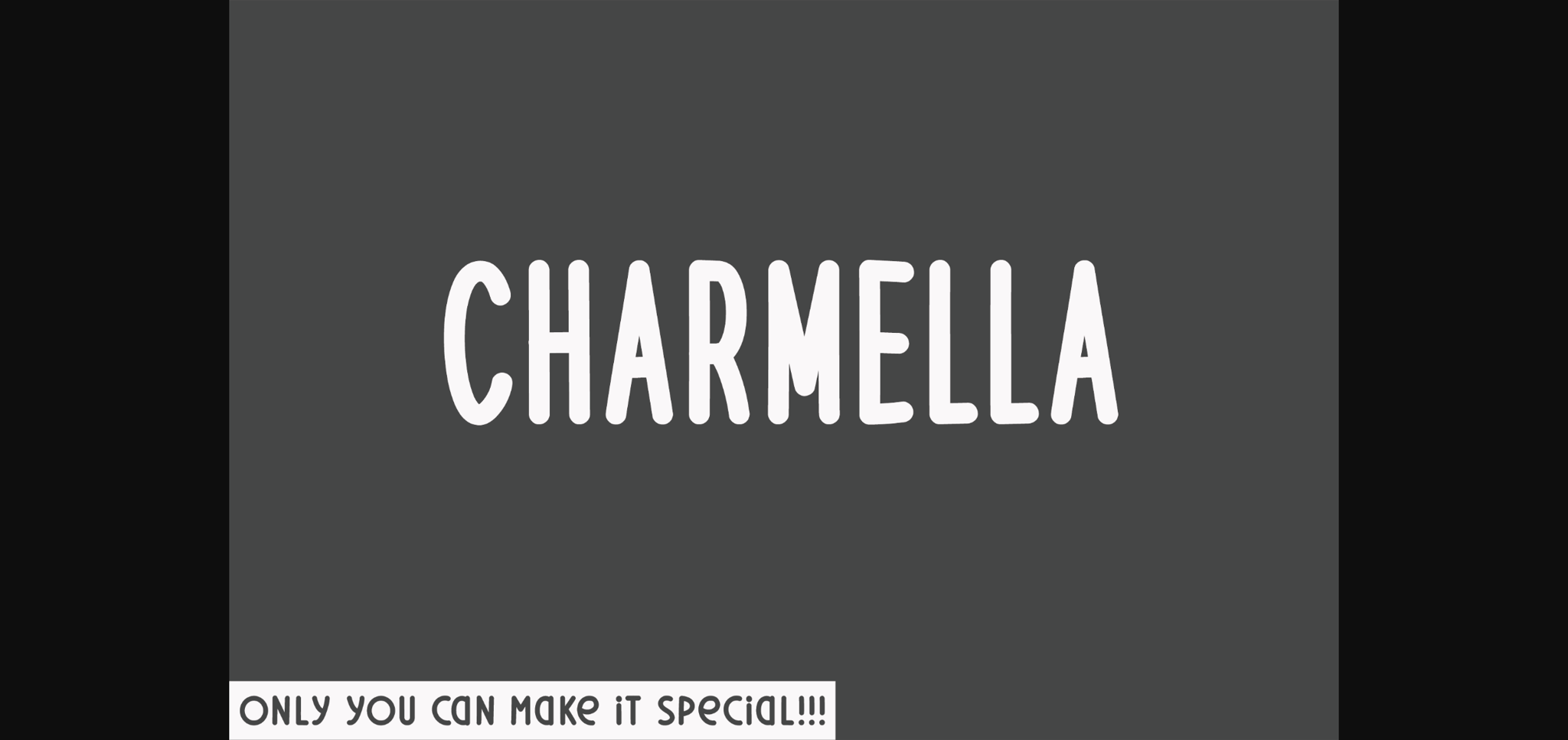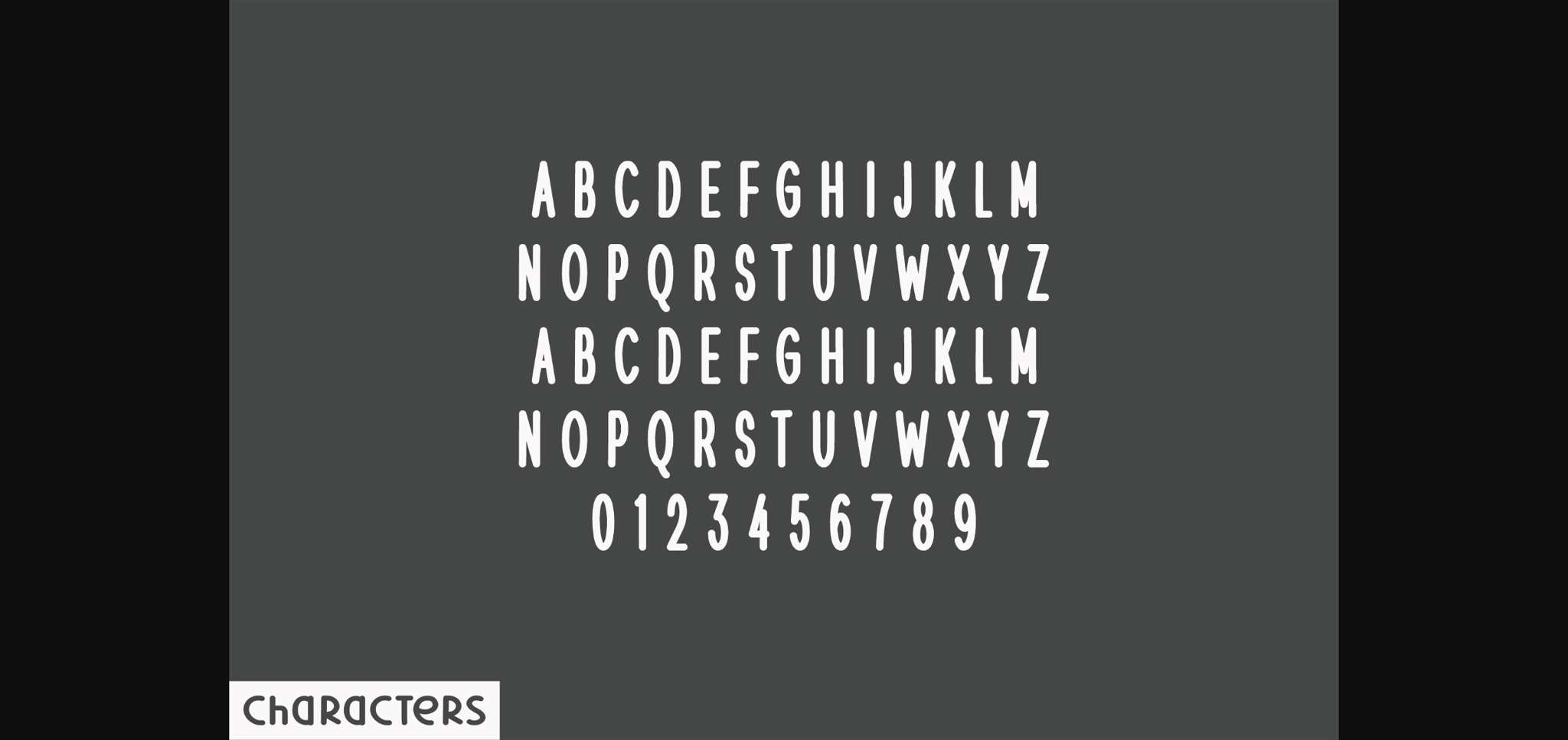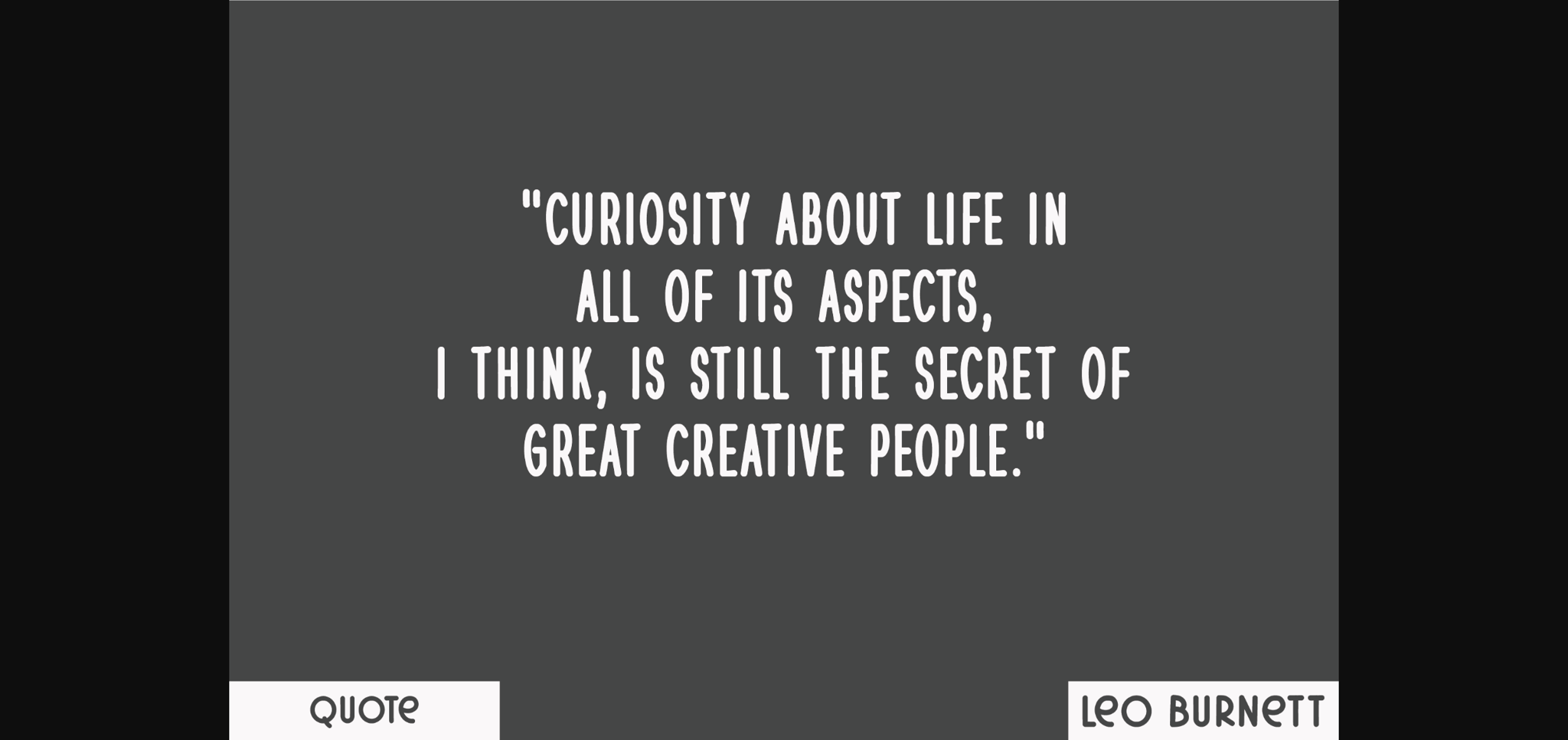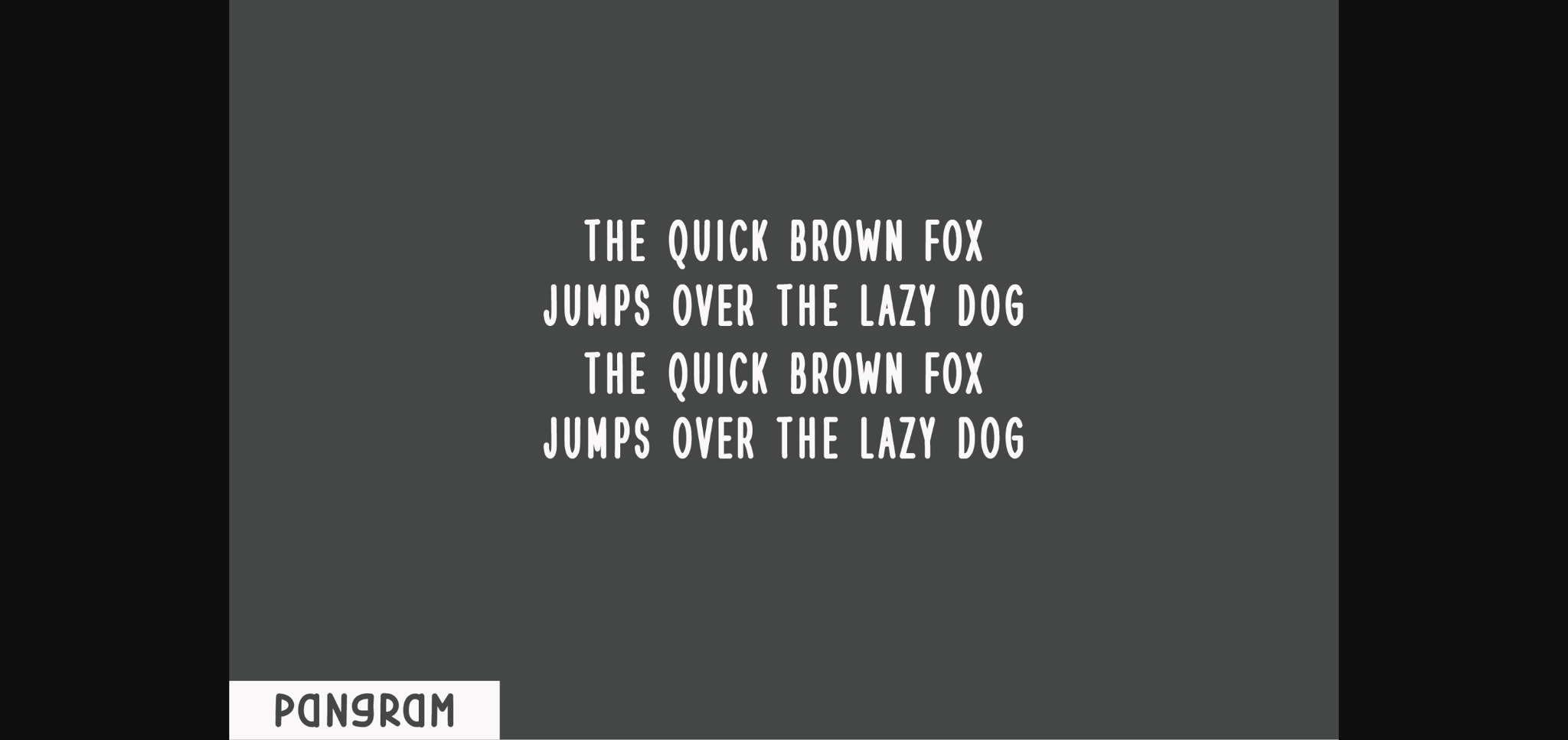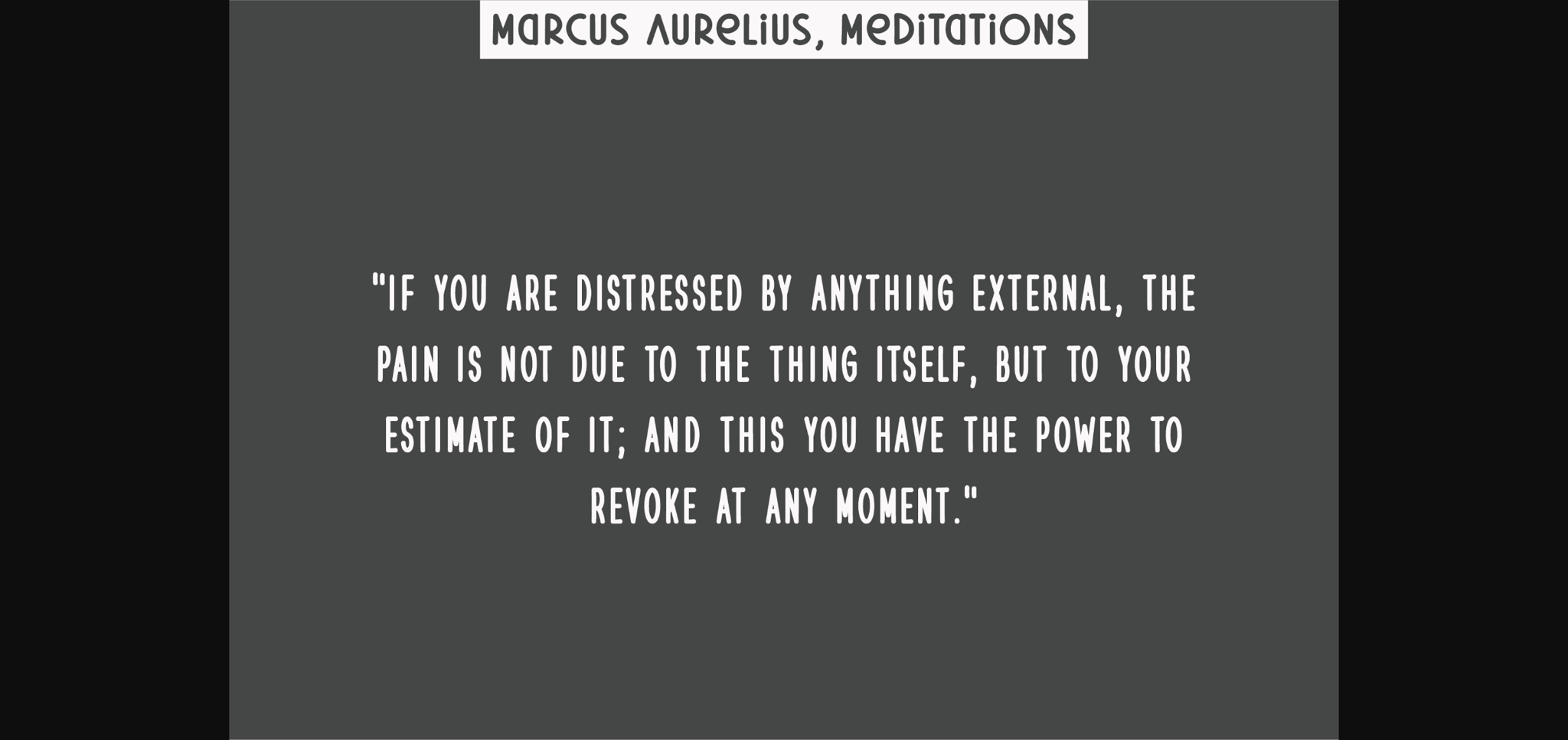
Charmella Font
About Charmella Font
Enchant your designs with Charmella – a spectacular sans serif display font. Possessed of uppercase letters and numbers, Charmella brings a vibrancy and relevance to your creations. Its most distinctive feature is the cute rounded shape adorning the terminus of each letter, effortlessly casting a charmful spell. Echoing the allure of natural handwriting, this font enhances the authenticity of your designs. Perfectly fitting for any design scheme exuding a natural and adorable vibe, Charmella truly adds an extra dash of charm to your work.